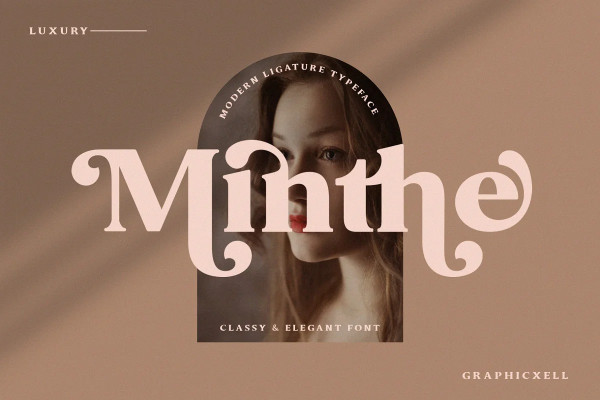
Minthe Font
Minthe Font, inspired by the famous minimalist logo perfect for the purposes of designing templates, brochures, videos, advertising branding, logos and more.